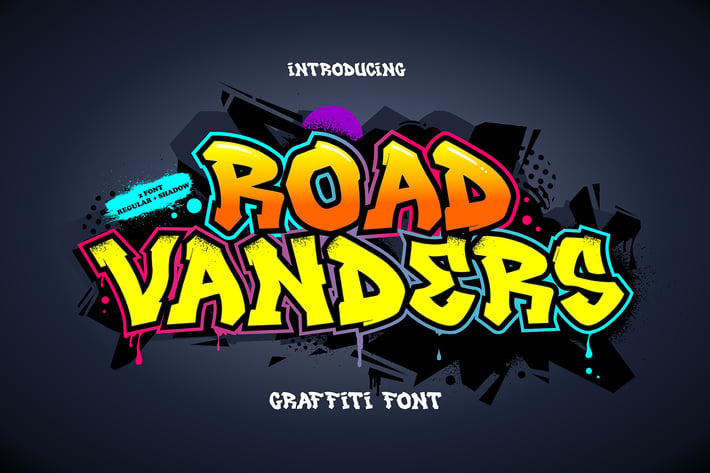
Road Vanders - Modern Graffiti Font
Get ready to make a statement with Road Vanders, the ultimate modern graffiti font. With its bold, edgy look and street-inspired design, this font is perfect for anyone who wants to add a touch of urban cool to their designs.
Road Vanders is a font that demands attention. Its rough, hand-drawn style and irregular shapes capture the essence of graffiti art, making it the perfect choice for streetwear brands, artists, and anyone looking to create a bold, urban look.
What sets Road Vanders apart from other graffiti fonts is its modern twist. While it's inspired by the classic graffiti style, it's been updated with a clean, modern look that's perfect for digital and print media. It's a font that's as versatile as it is stylish, and it's sure to make a lasting impression on anyone who sees it.
So if you're looking for a font that will help you stand out from the crowd, look no further than Road Vanders. This modern graffiti font is the perfect choice for anyone who wants to make a statement and leave their mark on the world.
Road Vanders is a font that demands attention. Its rough, hand-drawn style and irregular shapes capture the essence of graffiti art, making it the perfect choice for streetwear brands, artists, and anyone looking to create a bold, urban look.
What sets Road Vanders apart from other graffiti fonts is its modern twist. While it's inspired by the classic graffiti style, it's been updated with a clean, modern look that's perfect for digital and print media. It's a font that's as versatile as it is stylish, and it's sure to make a lasting impression on anyone who sees it.
So if you're looking for a font that will help you stand out from the crowd, look no further than Road Vanders. This modern graffiti font is the perfect choice for anyone who wants to make a statement and leave their mark on the world.